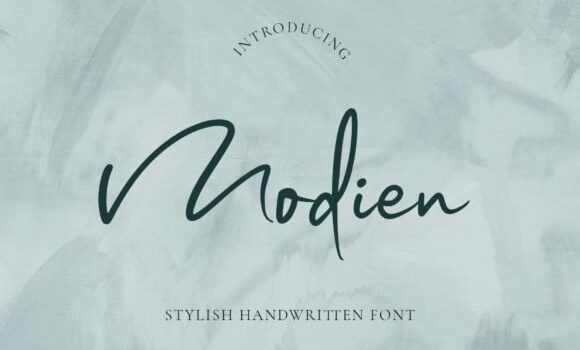
Modien Font – Free Download Introduction to Modien Font Modien is a beautiful and laid-back handwritten font with a unique feel and a stunning impact. 📸 Preview Gallery 6 images 📌 Product Name Modien Font 👤 Author craftsupplyco 📂 Category